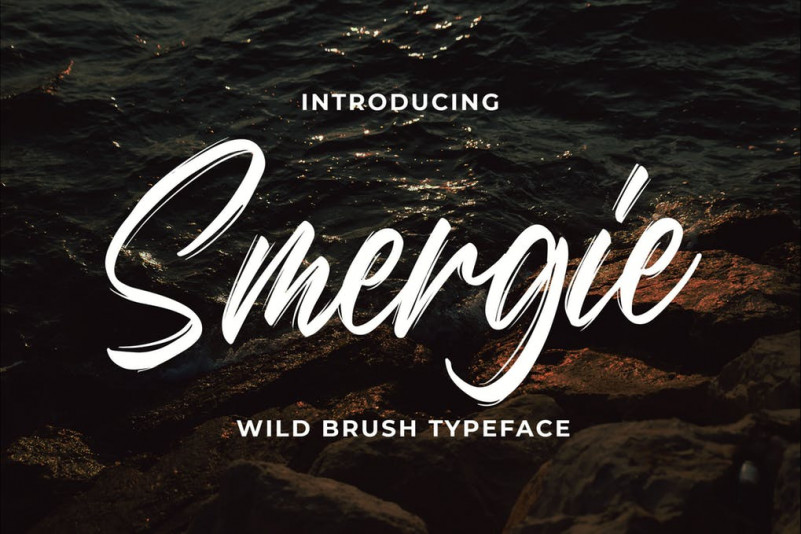
Smergie Font
Introducing of our new product the name Smergie Wild Brush Typeface. Smergie made with Brush pen into digital this font is a fun theme very good for signature, poster, branding, logotype etc